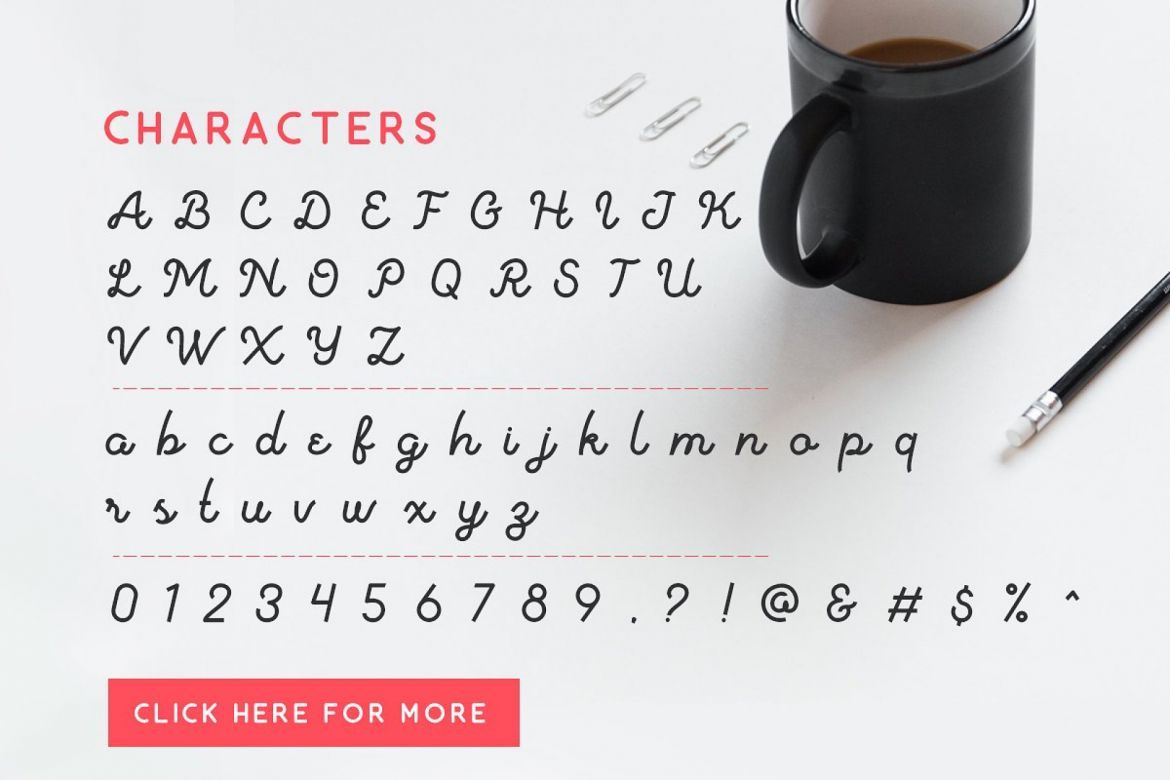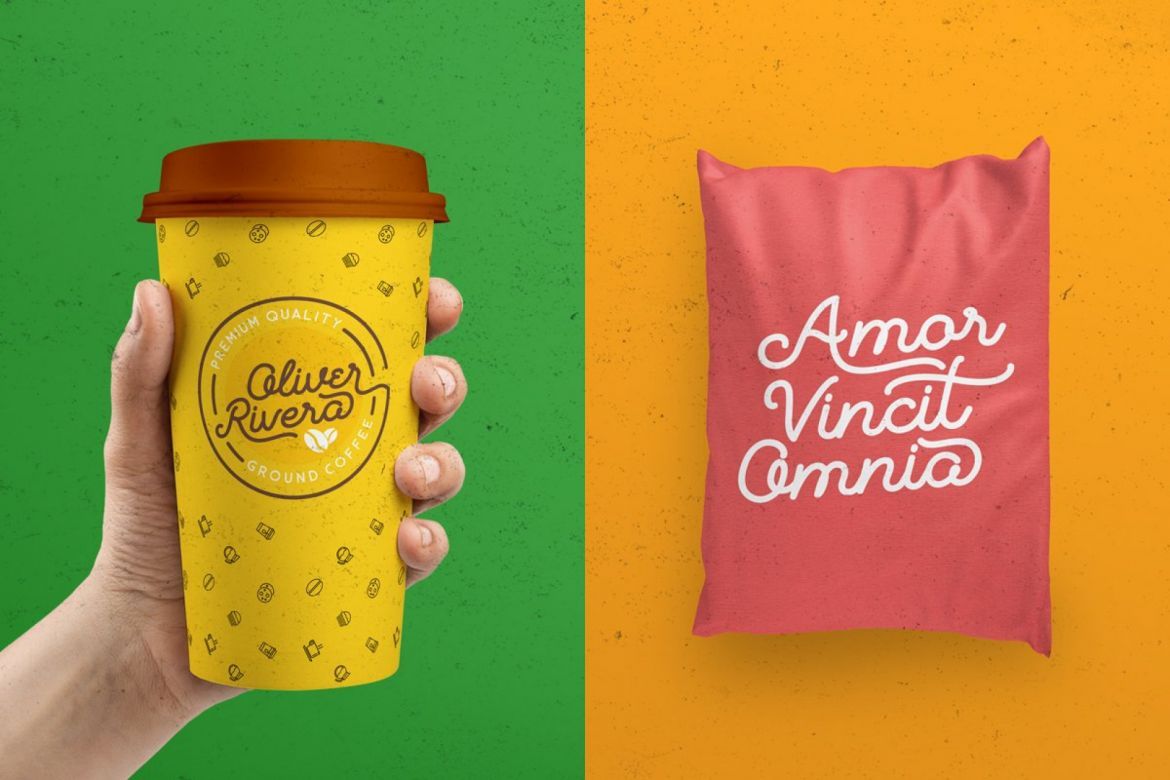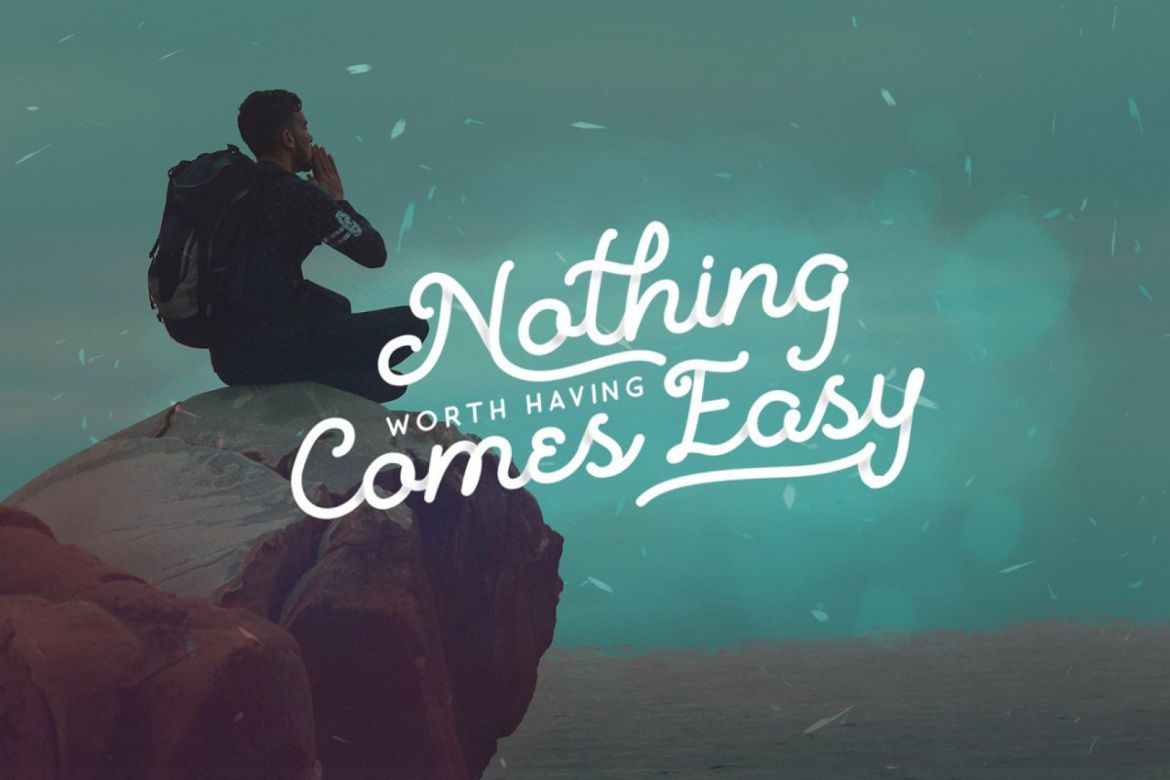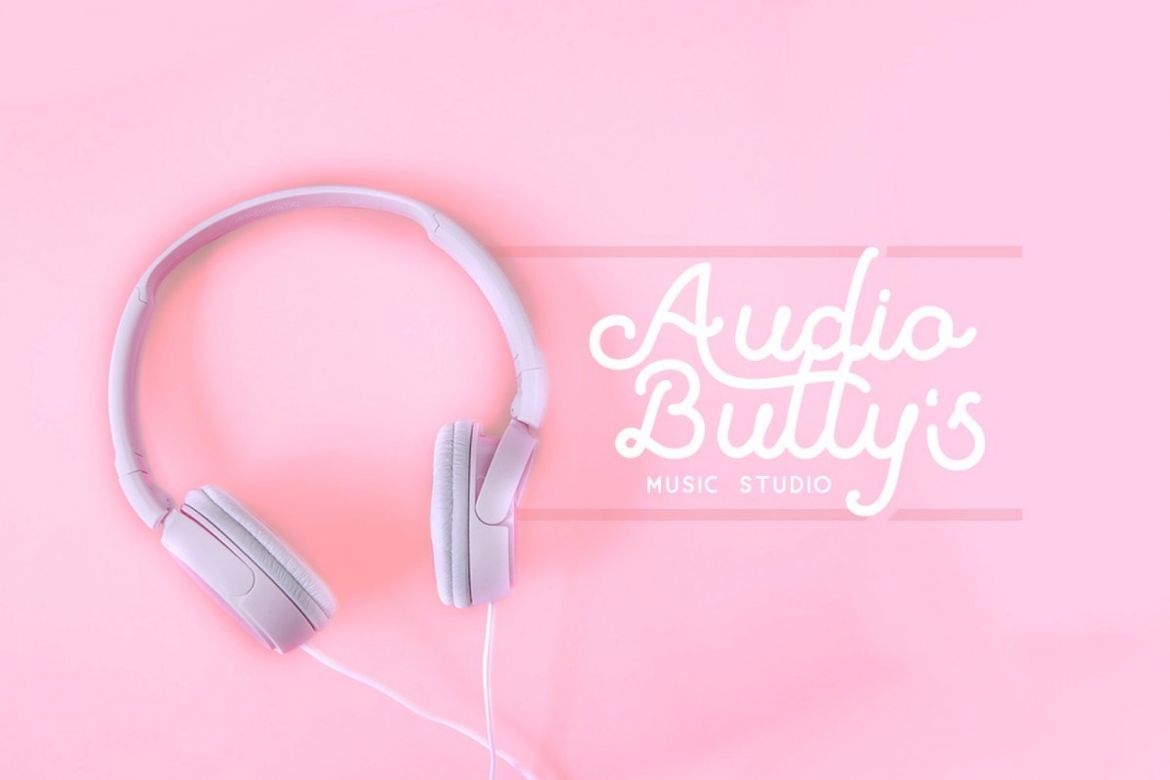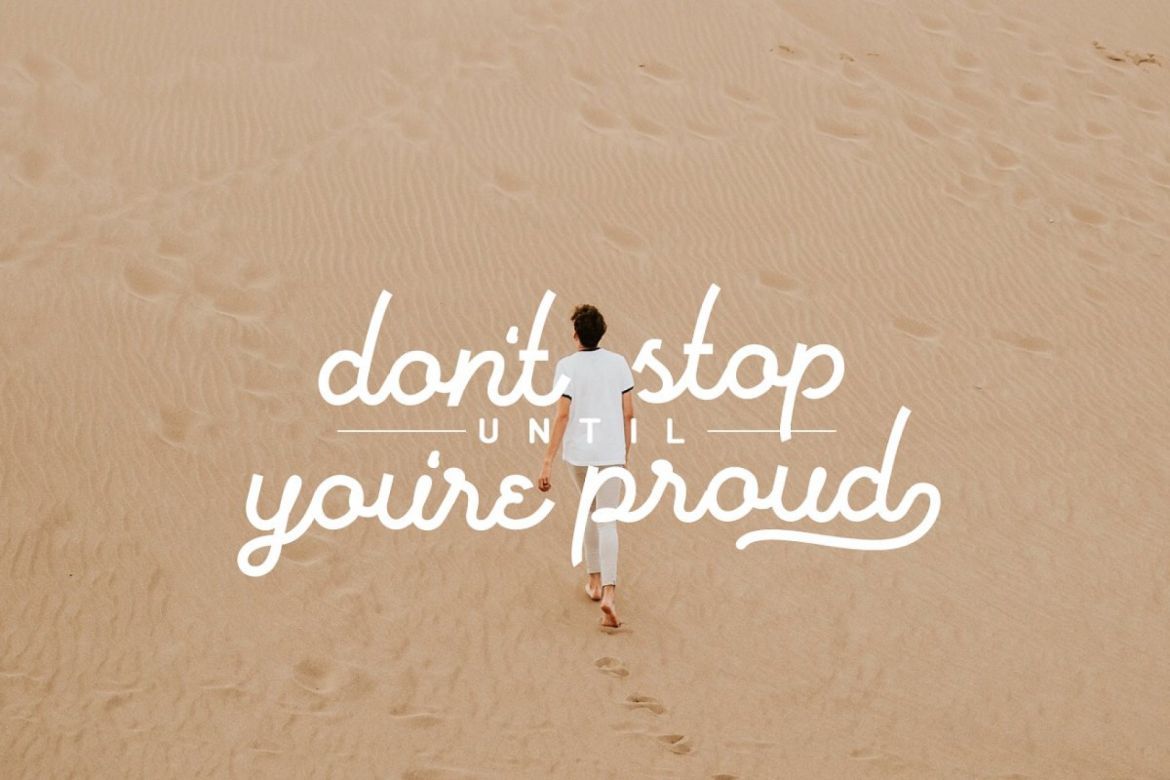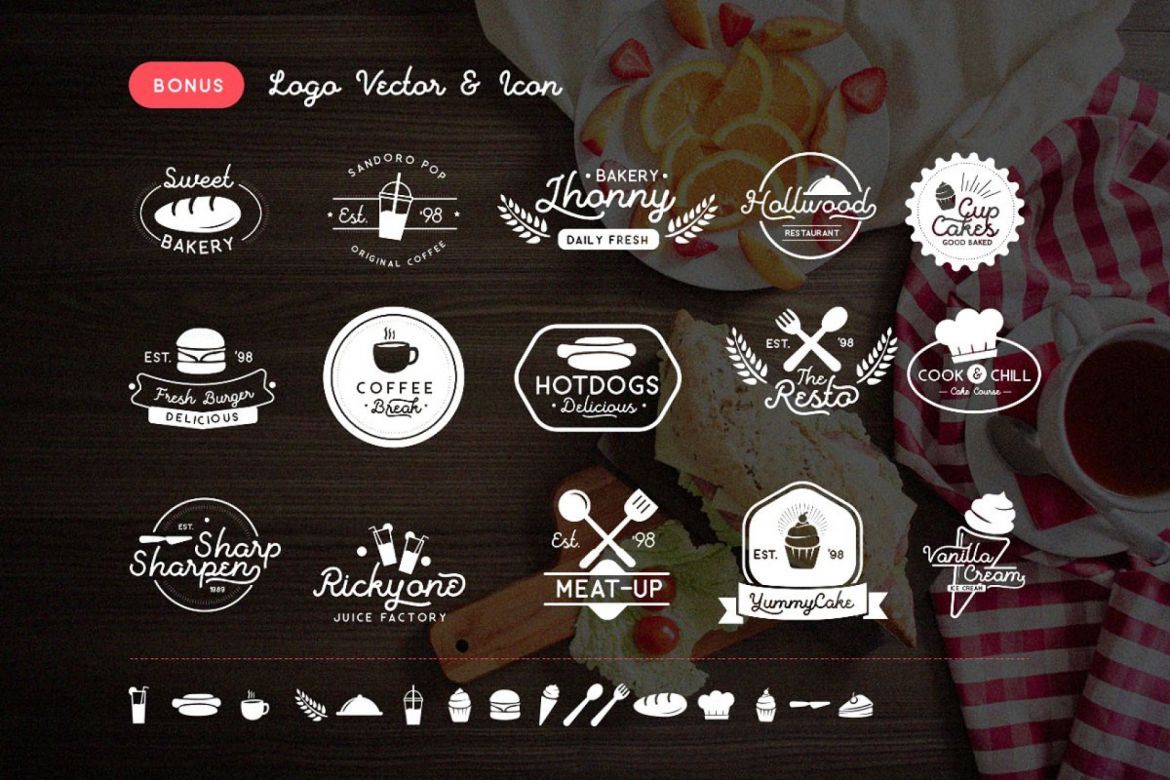
Vanilatte Font Duo
• introducing, vanilatte font duo, a unique monoline script typeface with two styles of monoline.
• this font is present in uppercase, lowercase letters, punctuation, symbols & numbers, alternative sets of styles, binders, etc.